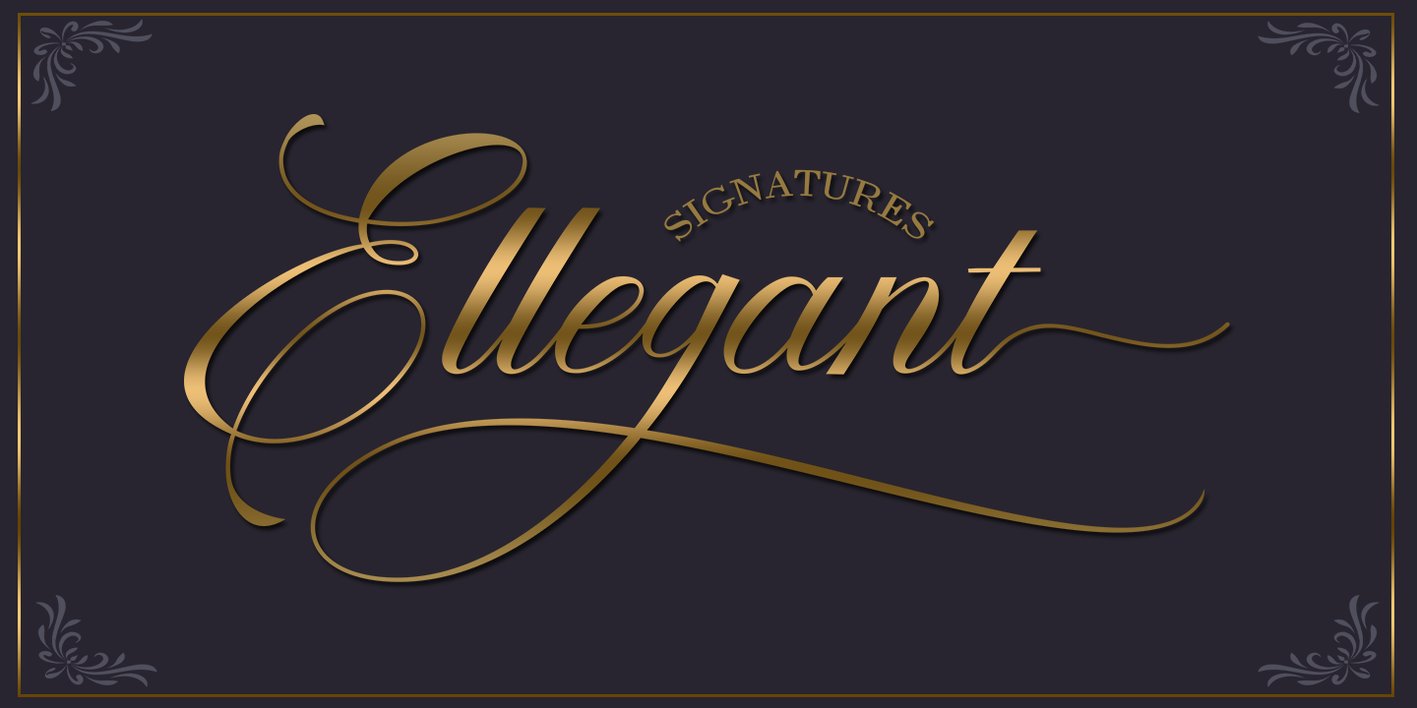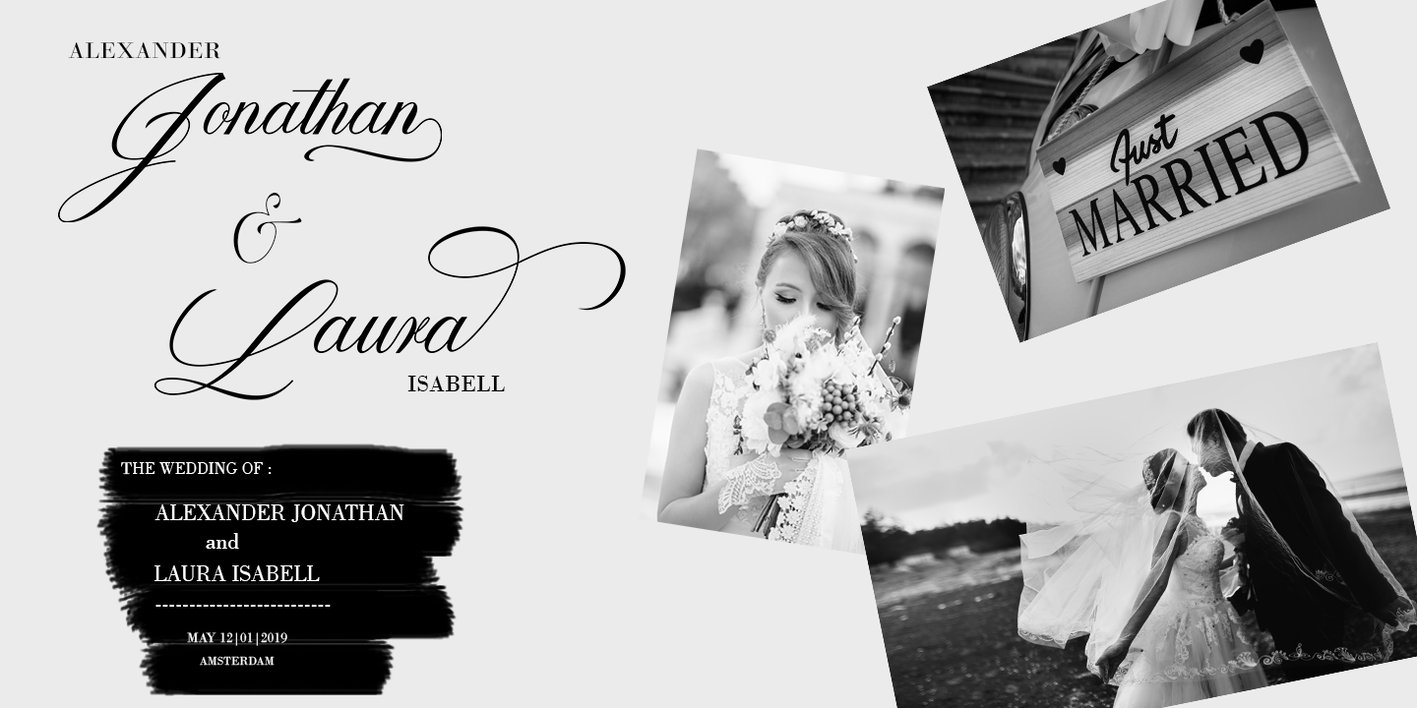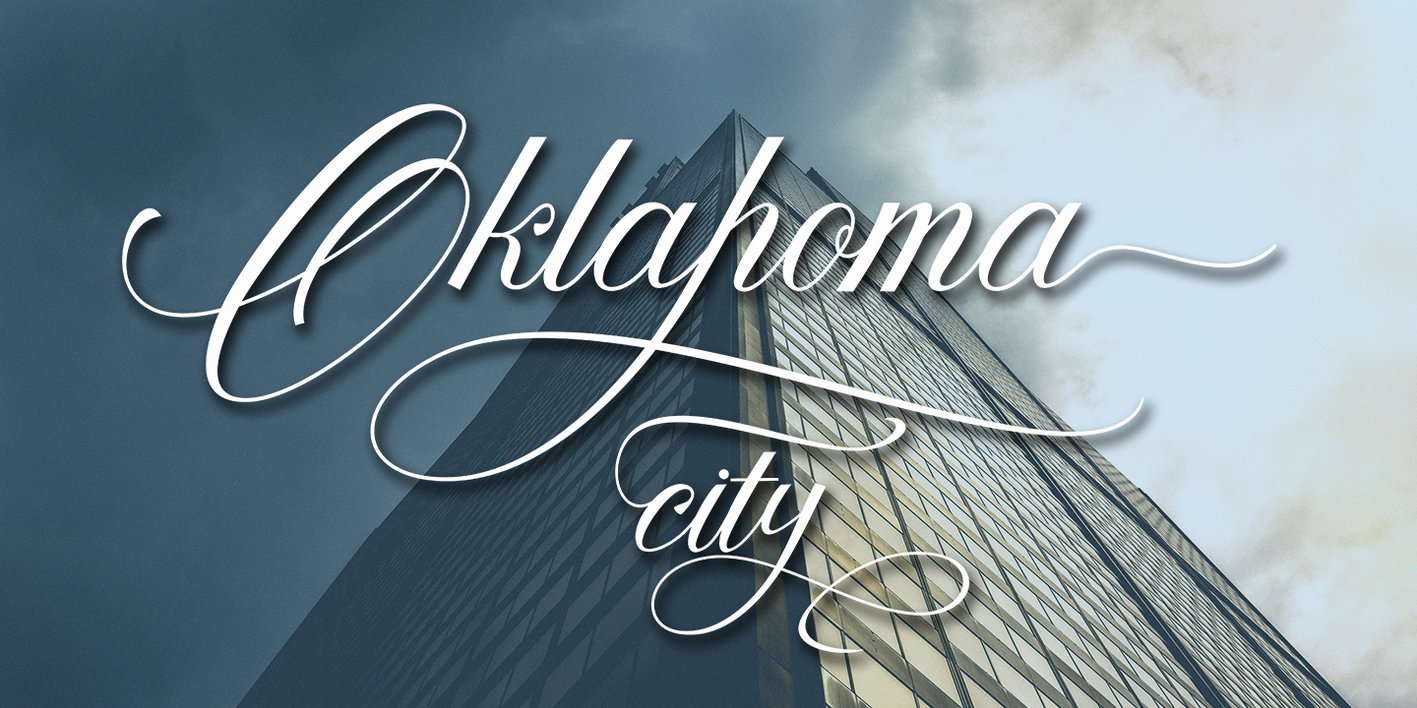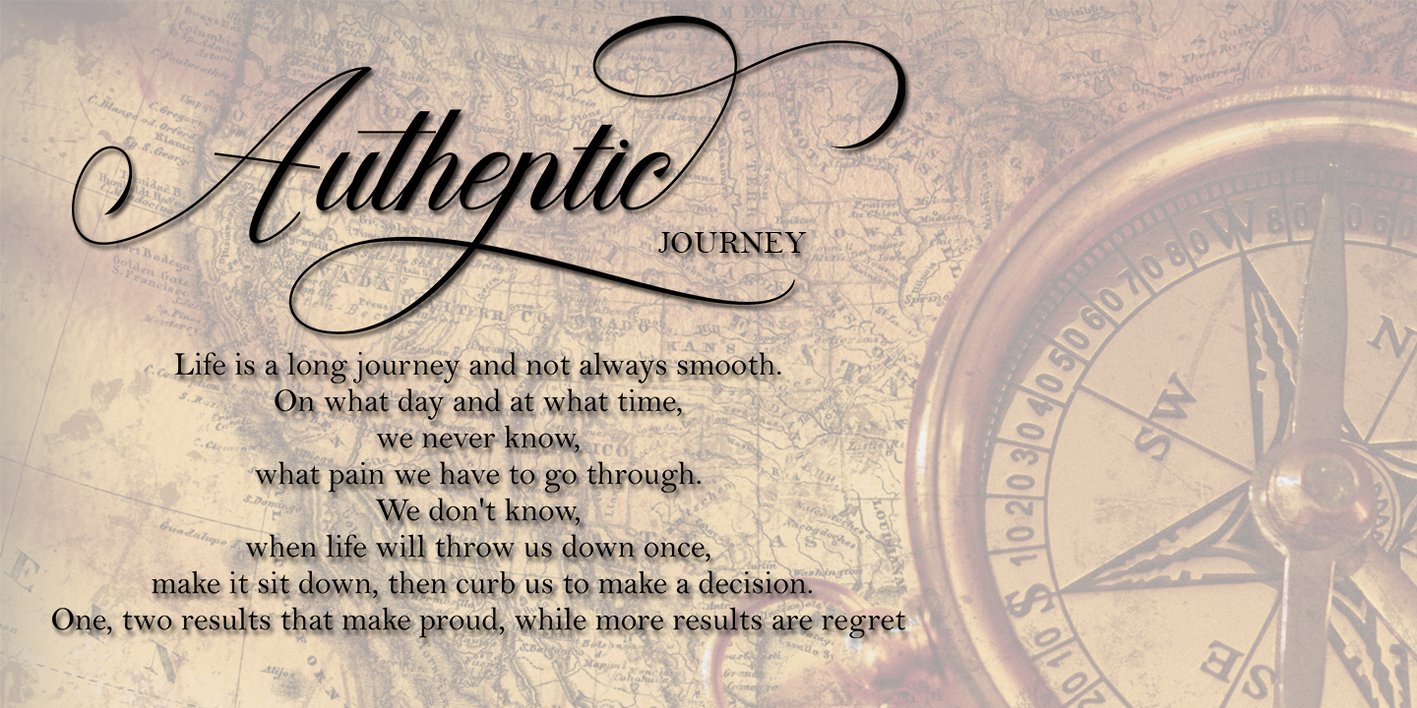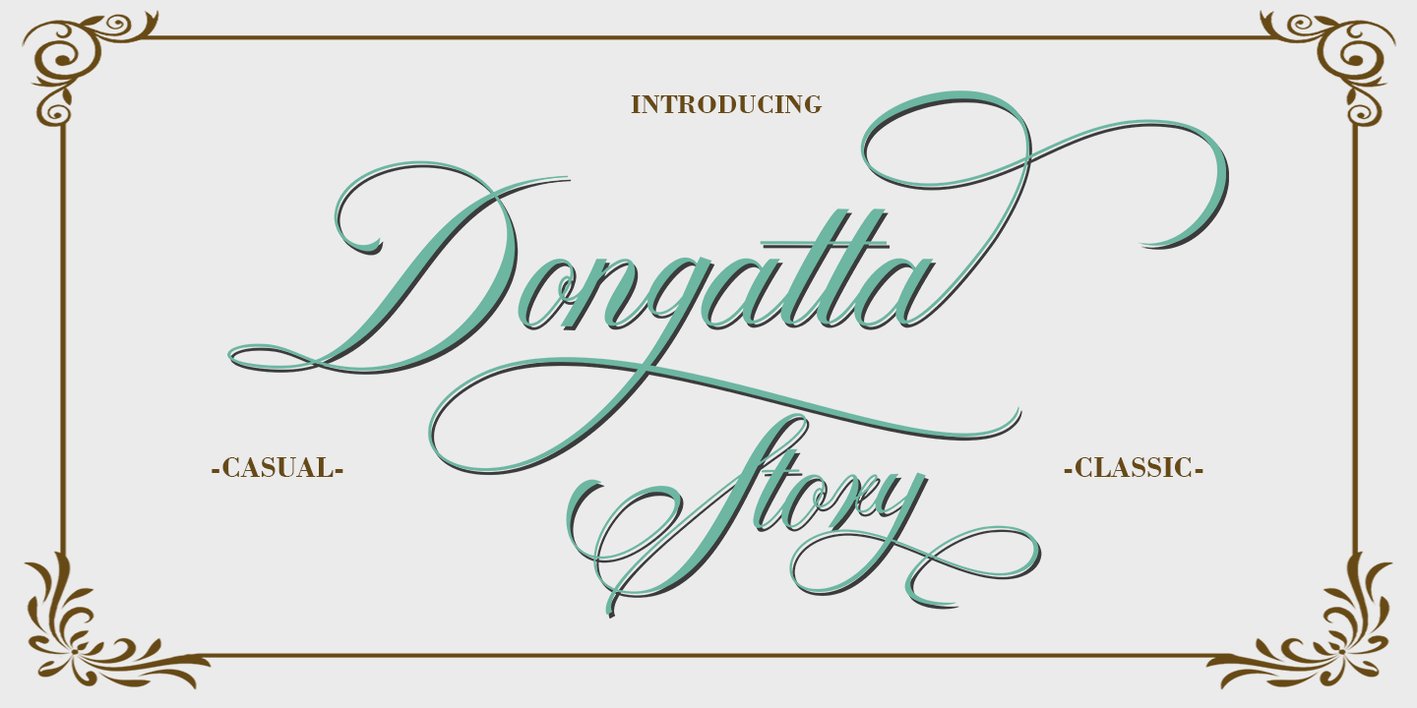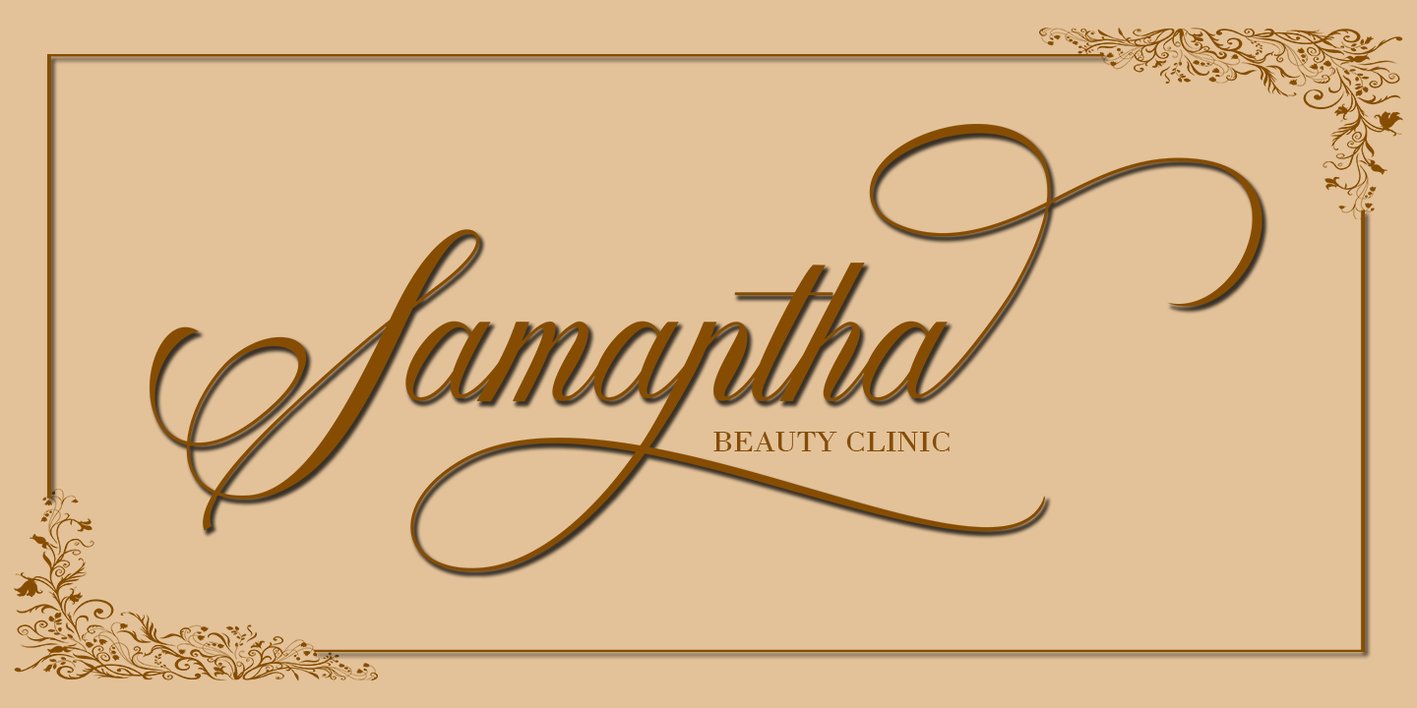
Dongatta Story Font
Dongatta Story Font is ideal for children's book covers, storytelling applications, playful branding projects, creative magazine headers, whimsical logos, educational materials, greeting cards, poster designs, social media graphics, and narrative-driven marketing campaigns.
What makes Dongatta Story Font so exciting is its unique ability to capture the essence of storytelling through typography. This captivating typeface features organic, hand-drawn characteristics with playful curves and distinctive letterforms that immediately evoke creativity and imagination. The font's approachable design and friendly aesthetic create an instant connection with readers, making it perfect for projects that need to convey warmth, authenticity, and engaging narrative qualities.
The Dongatta Story Font family typically includes various weights and styles, often featuring regular, bold, and decorative variations. Many story-themed font collections also provide additional ornamental characters, decorative elements, and contextual alternates that enhance the storytelling experience and allow designers to create more dynamic and expressive layouts.
The versatility of Dongatta Story Font makes it particularly valuable for digital storytelling platforms, blog headers, podcast artwork, and social media content where personality and relatability are crucial. Content creators and marketers will find this font especially effective for building brand narratives that resonate with audiences seeking authentic, human-centered communication.
What sets Dongatta Story Font apart is its remarkable ability to maintain readability while injecting personality into every word. This balance makes it suitable for both headline applications and longer text blocks where maintaining reader engagement is essential. The font works exceptionally well in educational contexts, where creating an inviting learning environment is paramount.
Professional designers recognize that Dongatta Story Font brings a unique storytelling dimension to projects across various industries including publishing, entertainment, education, and lifestyle brands. Its organic feel and narrative quality make it an invaluable asset for projects requiring emotional connection and creative expression.
The thoughtful design of Dongatta Story Font ensures consistent performance across different applications, from digital platforms to print materials, making it a reliable choice for comprehensive branding and design projects.